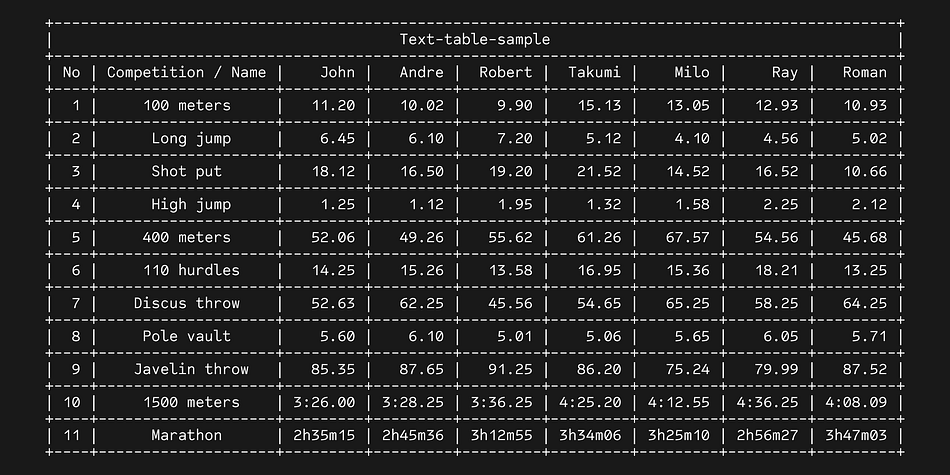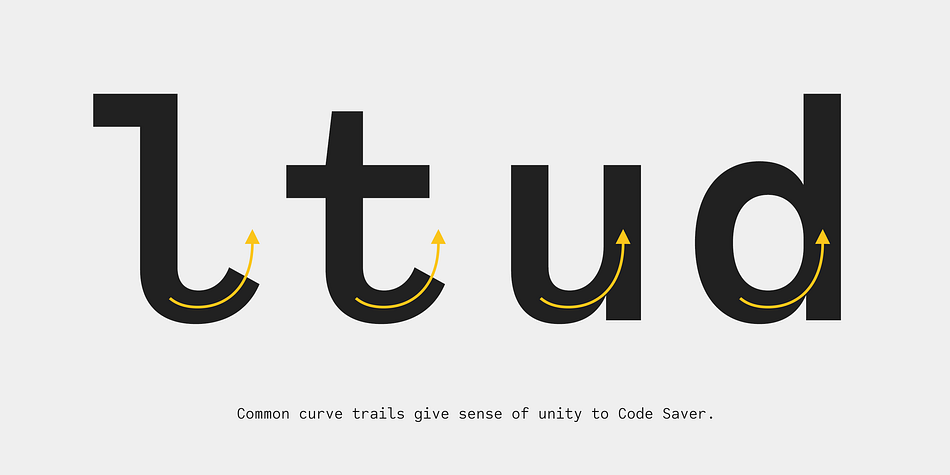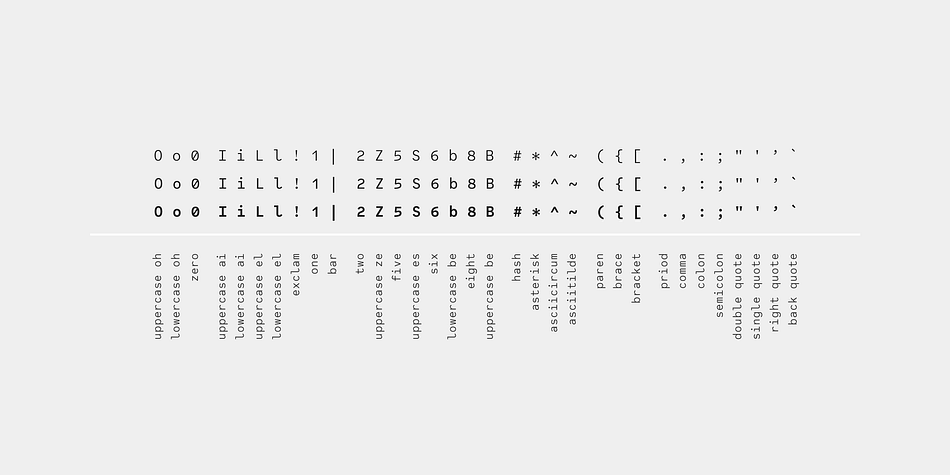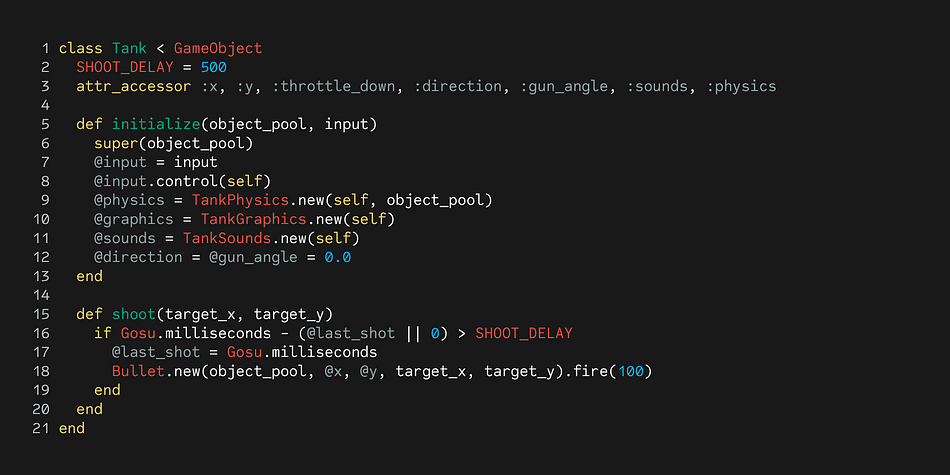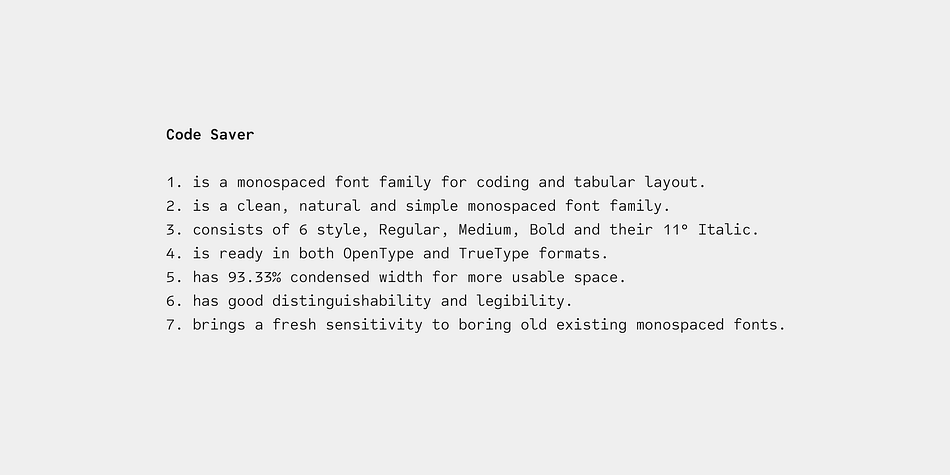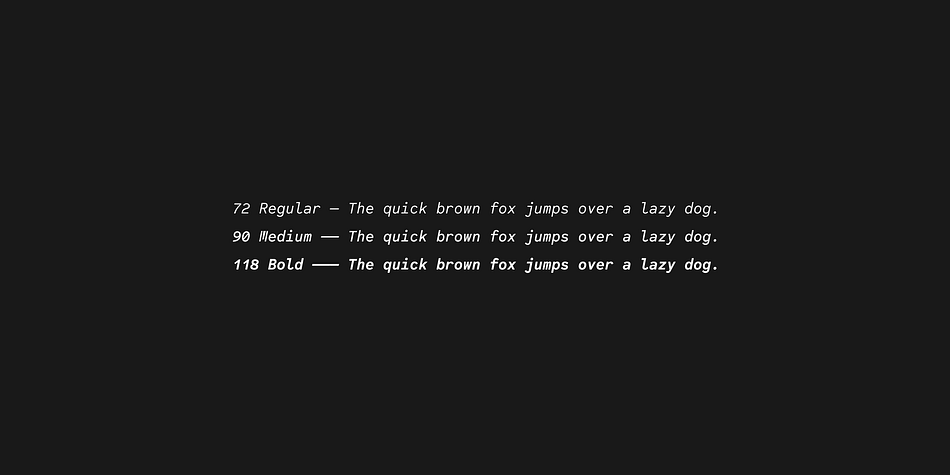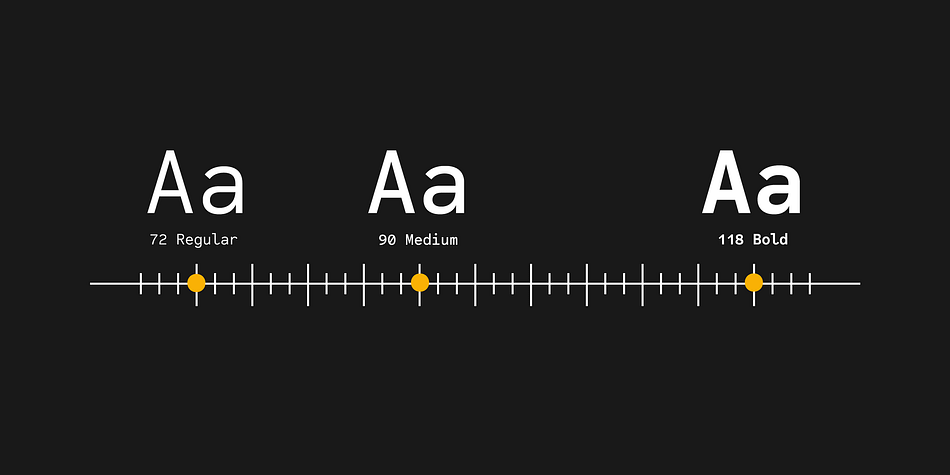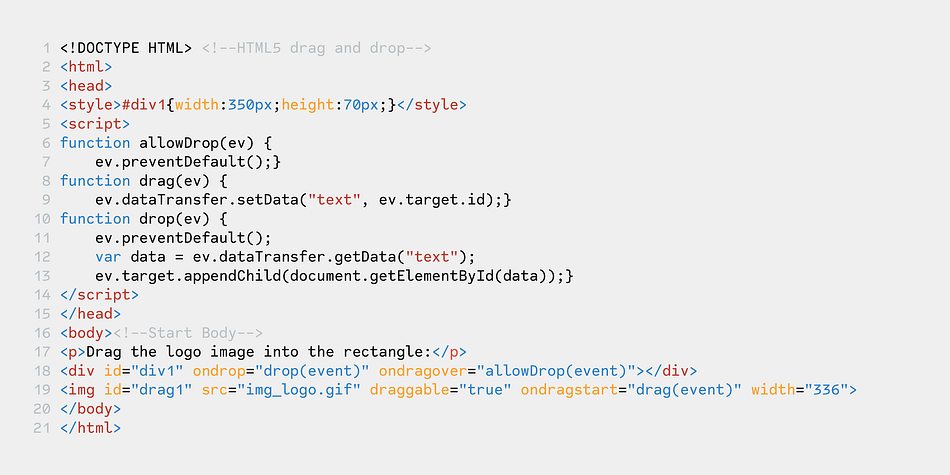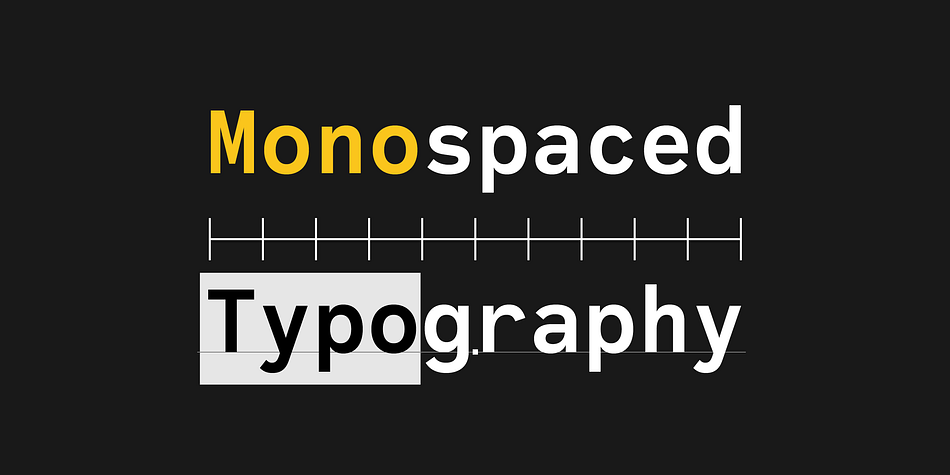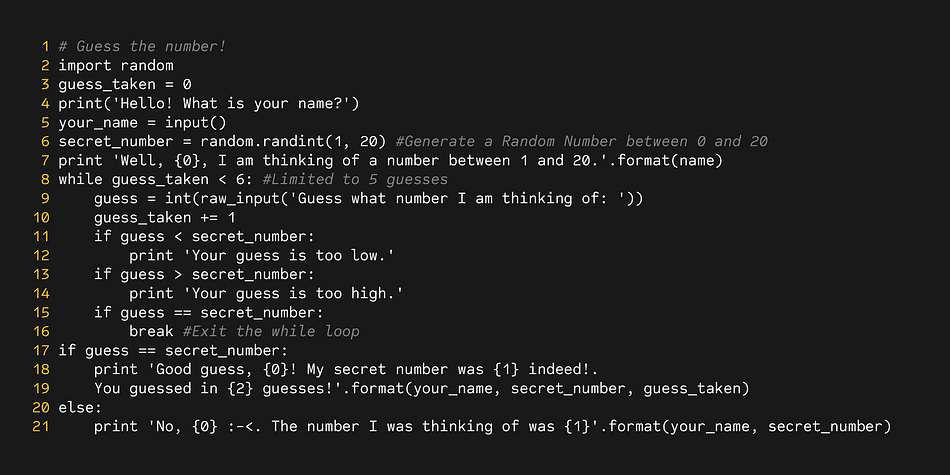
Designed by Ryoichi Tsunekawa, Code Saver is a sans serif and typewriter font family. This typeface has six styles and was published by Dharma Type.
Code Saver — Next-generation monospaced font —
1. Code Saver is a monospaced font family for coding and tabular layout.
2. Code Saver is a clean, natural and simple monospaced font family.
3. Code Saver consists of 6 style, Regular, Medium, Bold and their 11° Italic.
4. Code Saver has 93.33% condensed width for more usable space.
5. Code Saver has good distinguishability and legibility especially numerals.
6. Code Saver brings a fresh sensitivity to boring old existing monospaced fonts.